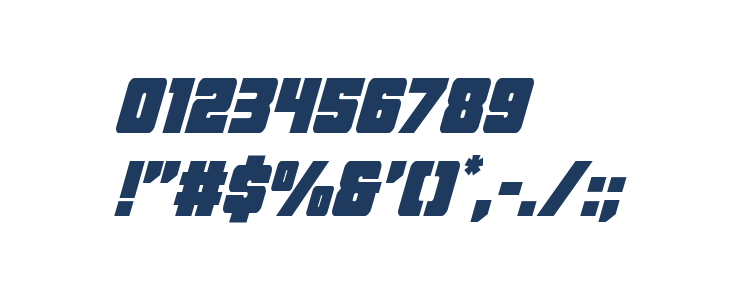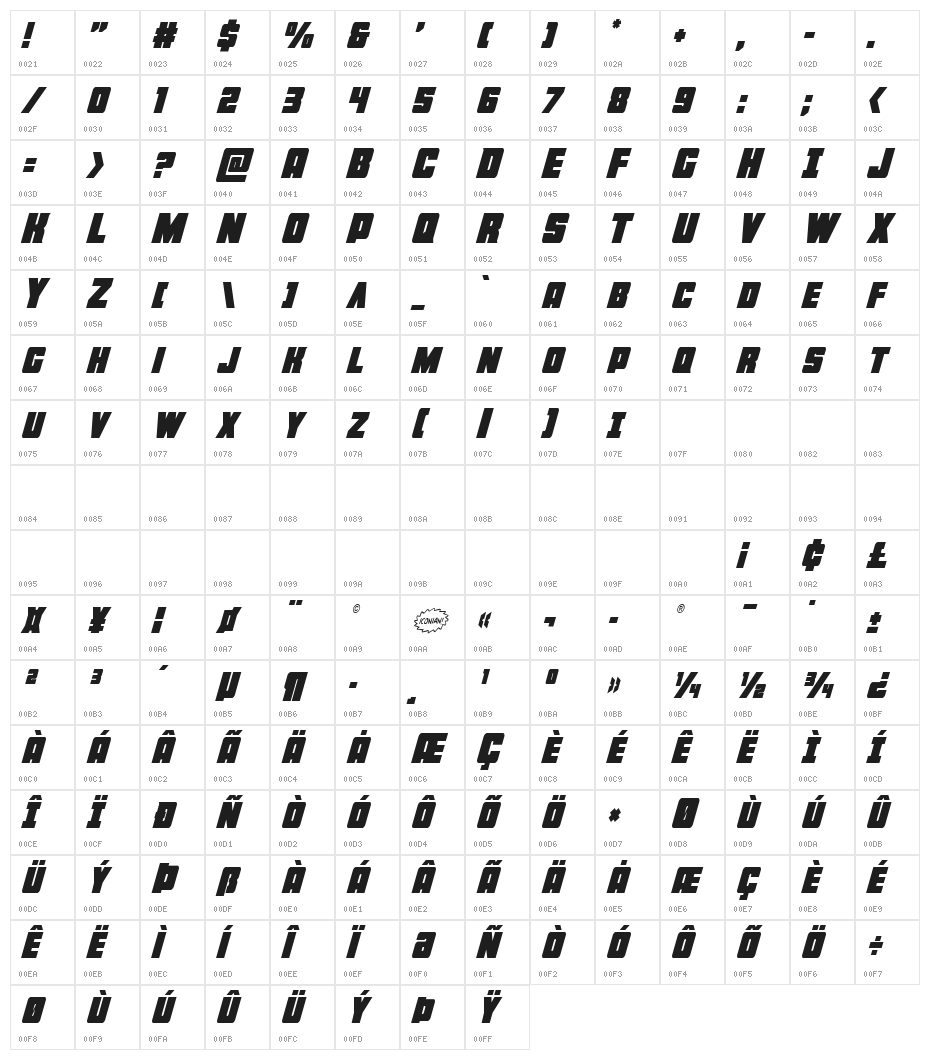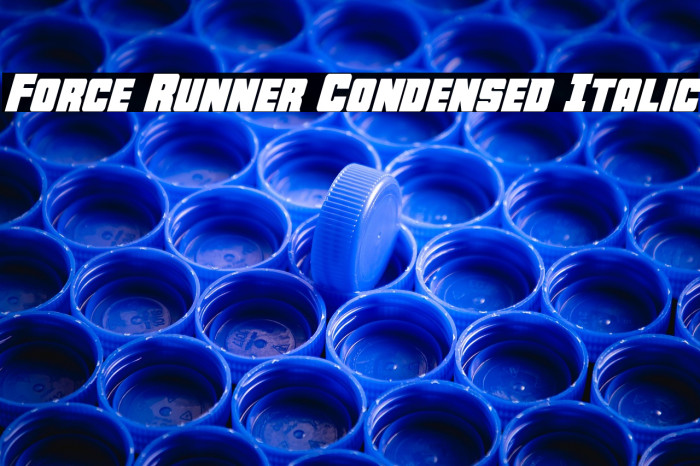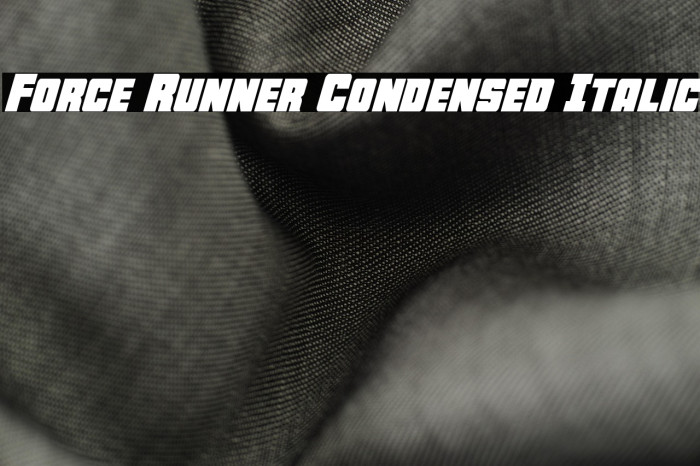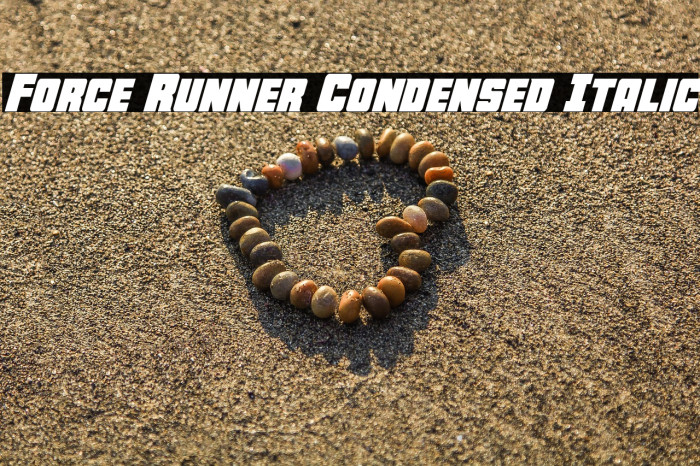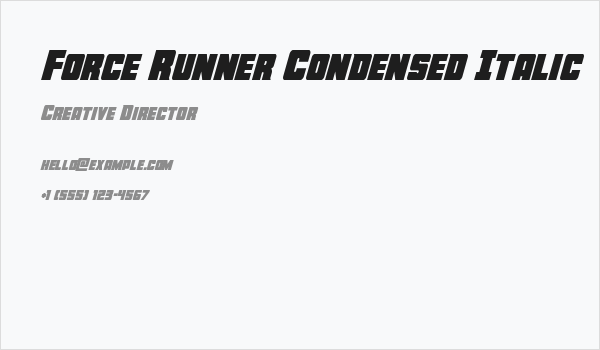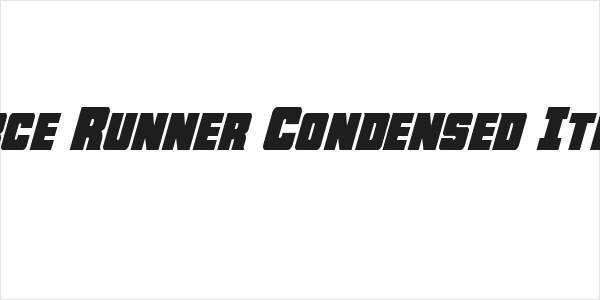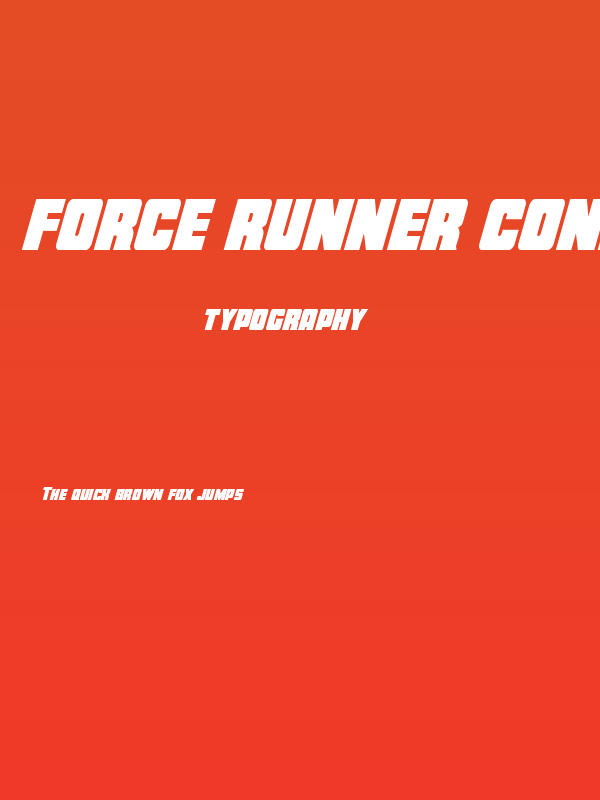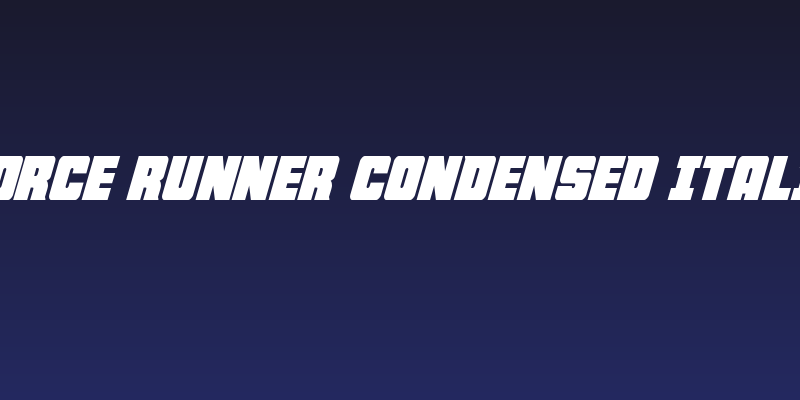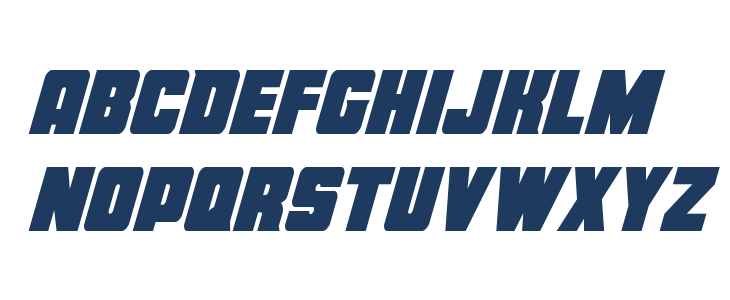
Force Runner Condensed Italic Font
Force Runner Condensed Italic Description
This font features a bold, condensed style with a distinct italic slant, giving it a dynamic and energetic appearance. The characters are tightly spaced, enhancing the compact and impactful look. The strokes are thick and consistent, providing a strong visual presence. The uppercase and lowercase letters maintain a uniform design, ensuring readability while conveying a sense of urgency and movement. The numerals and special characters are designed to match the boldness and style of the alphabet, making this font suitable for attention-grabbing applications.